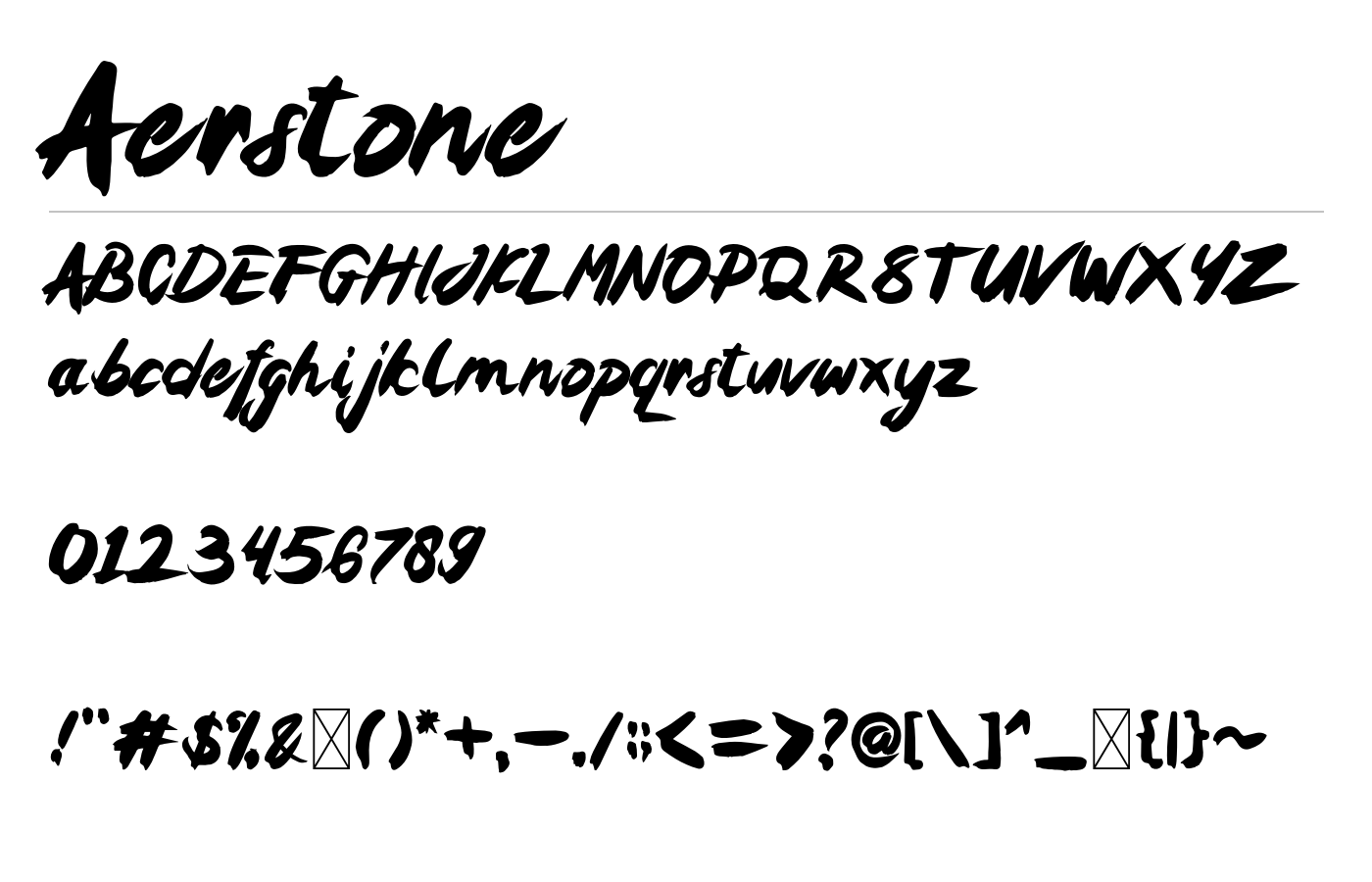
Aerstone is a bold, energetic script font with a brush-style texture that gives it a dynamic and handcrafted feel. Its strong weight and lively strokes make it perfect for expressive headlines, logos, and branding that seek a modern yet personal touch. This font is well-suited for creative projects needing a confident, artistic vibe that stands out with style and character.
Aerstone Font
About Aerstone Font
| Font family | Aerstone Font |
| Designer | Mohamad Rois Ngainul Yakin |